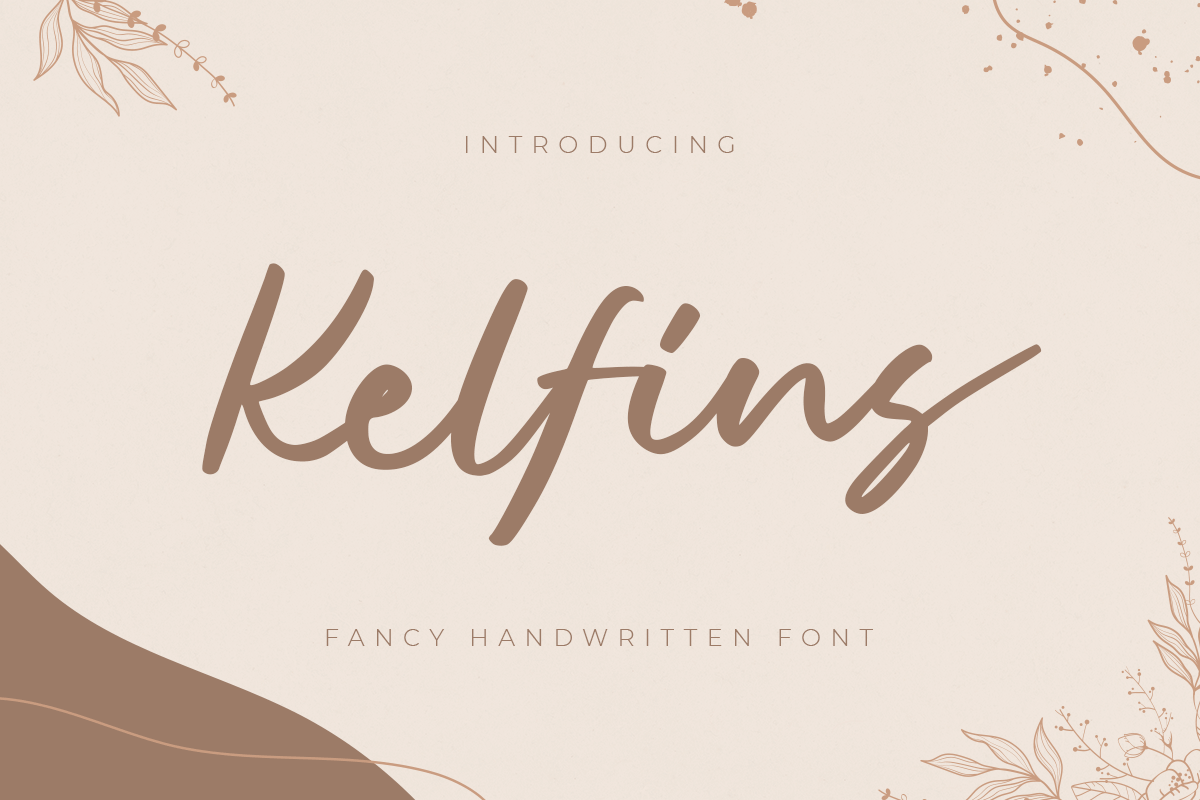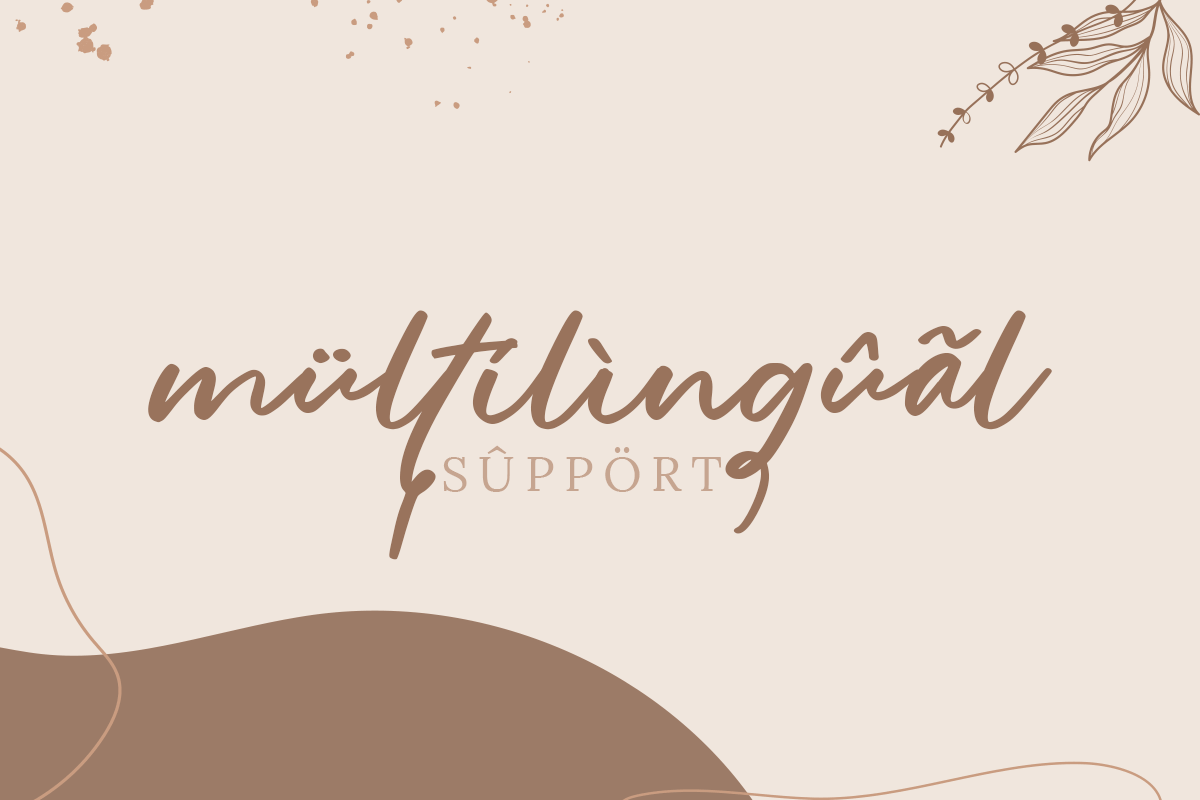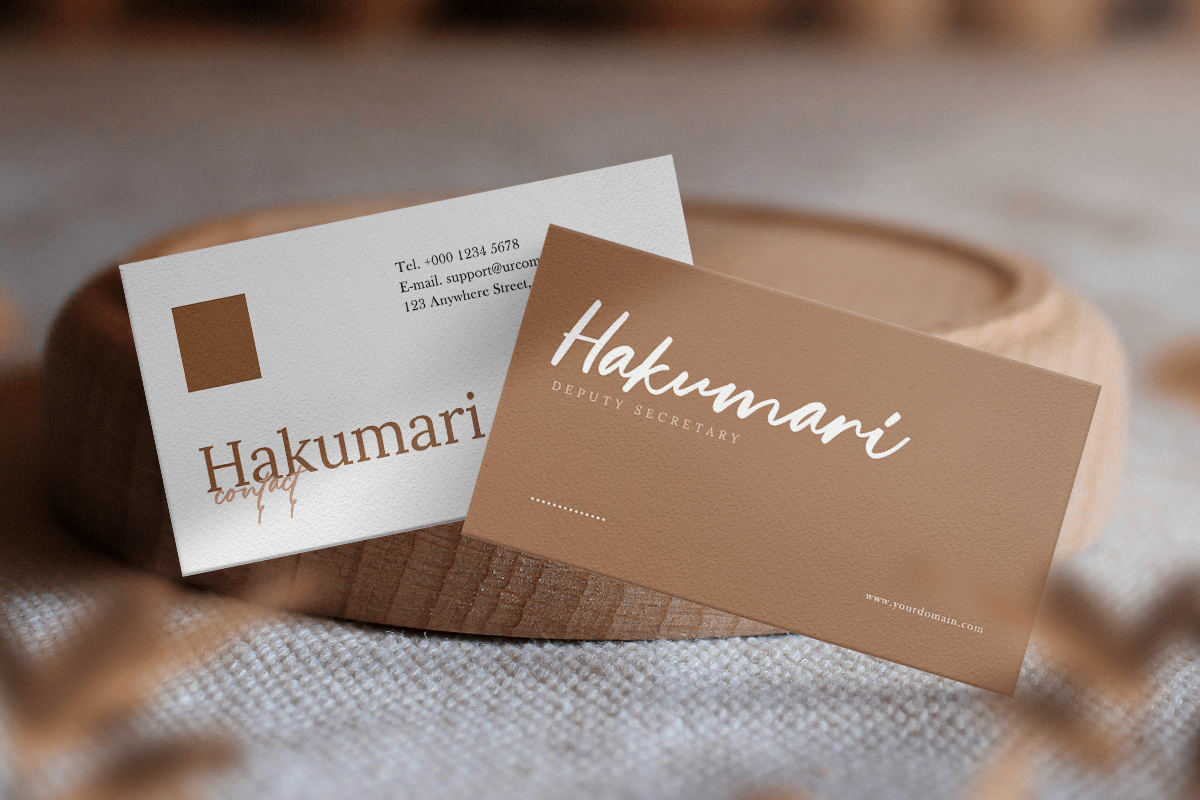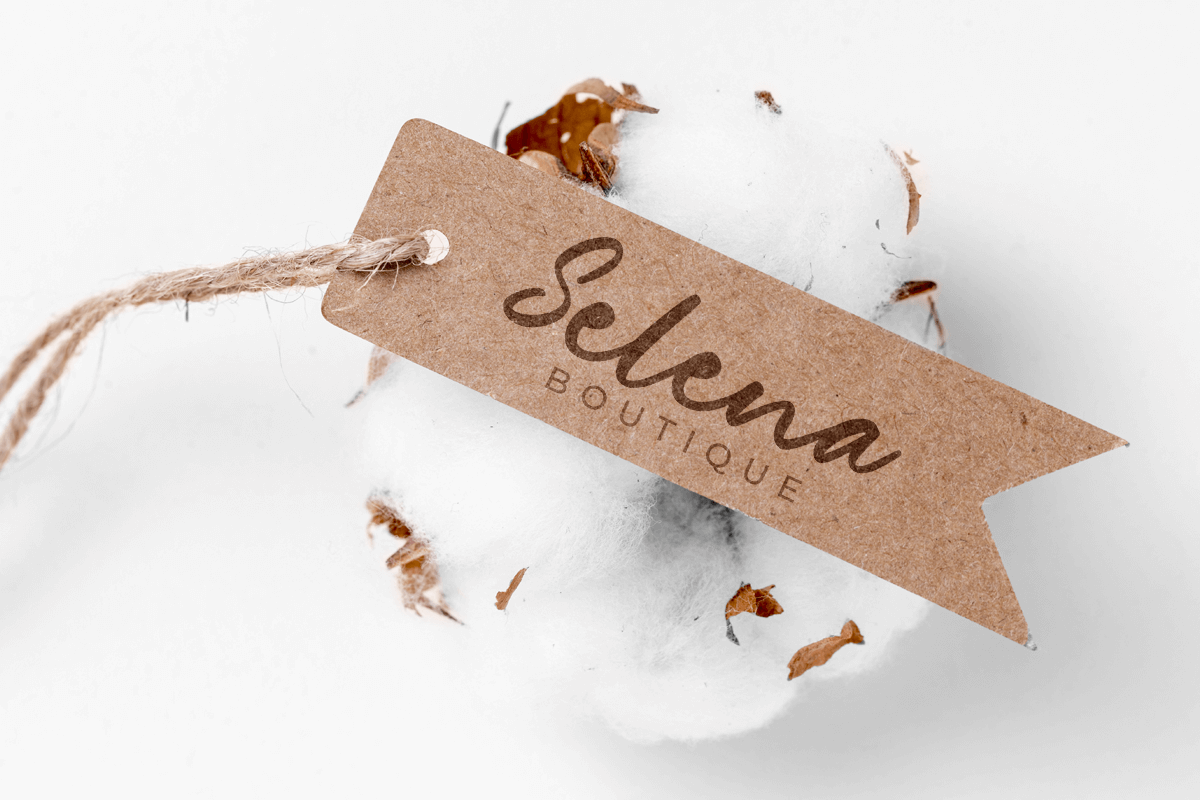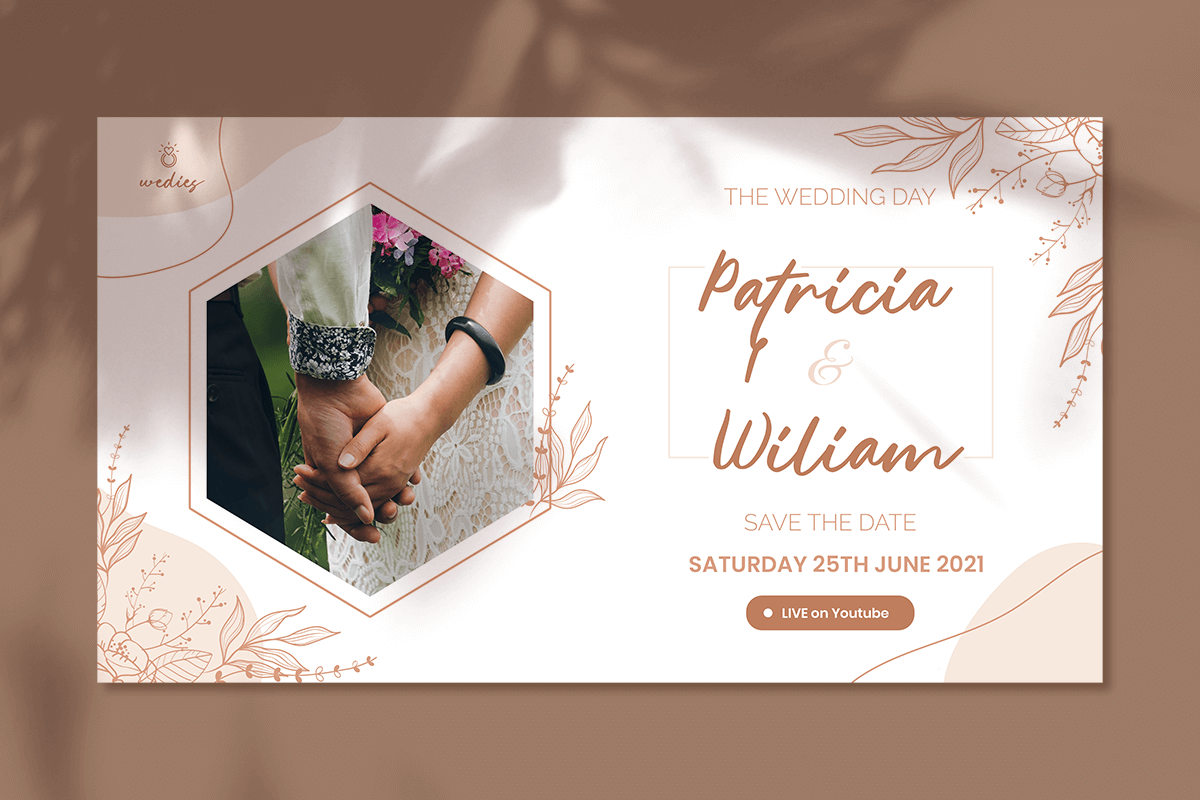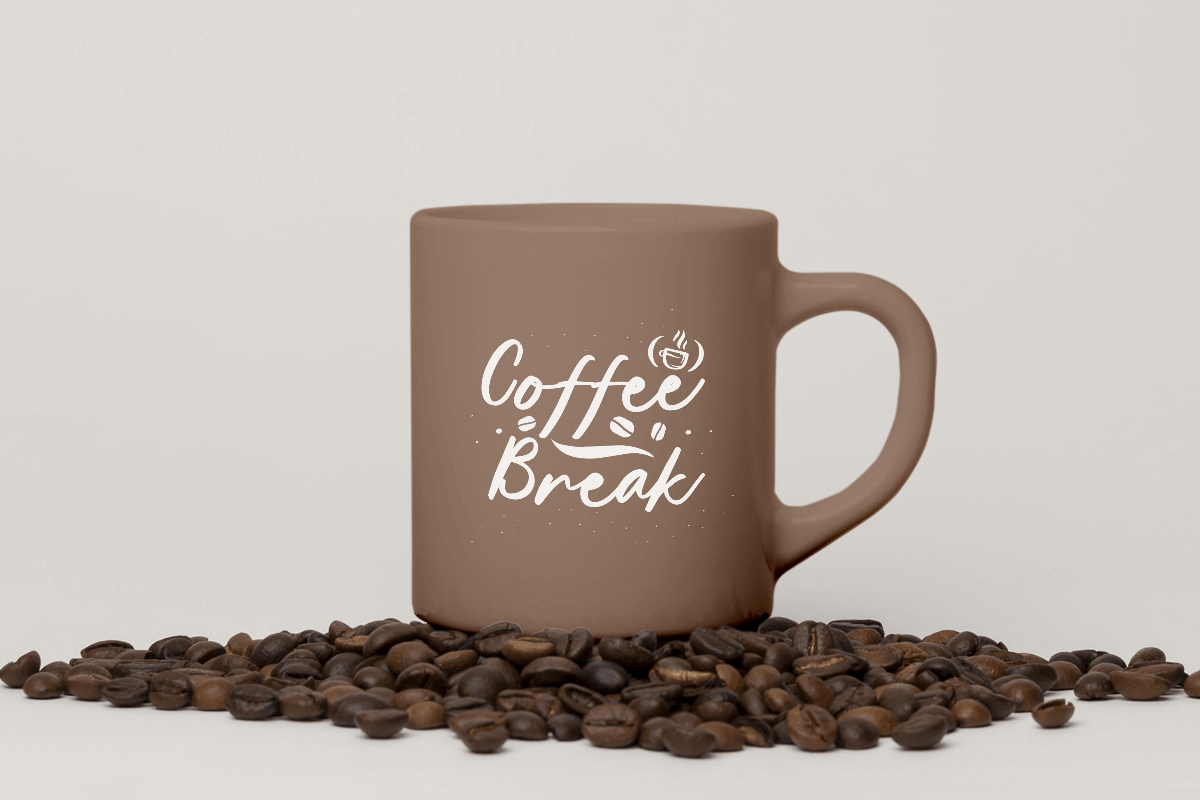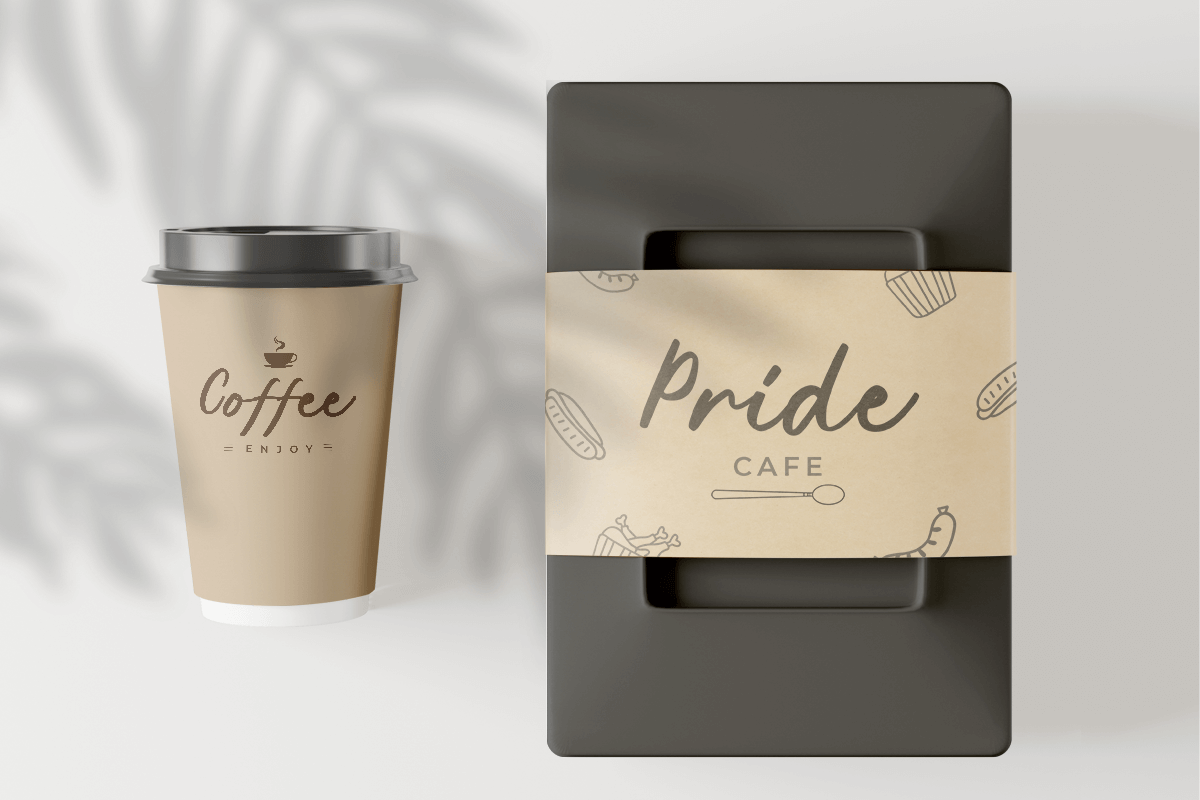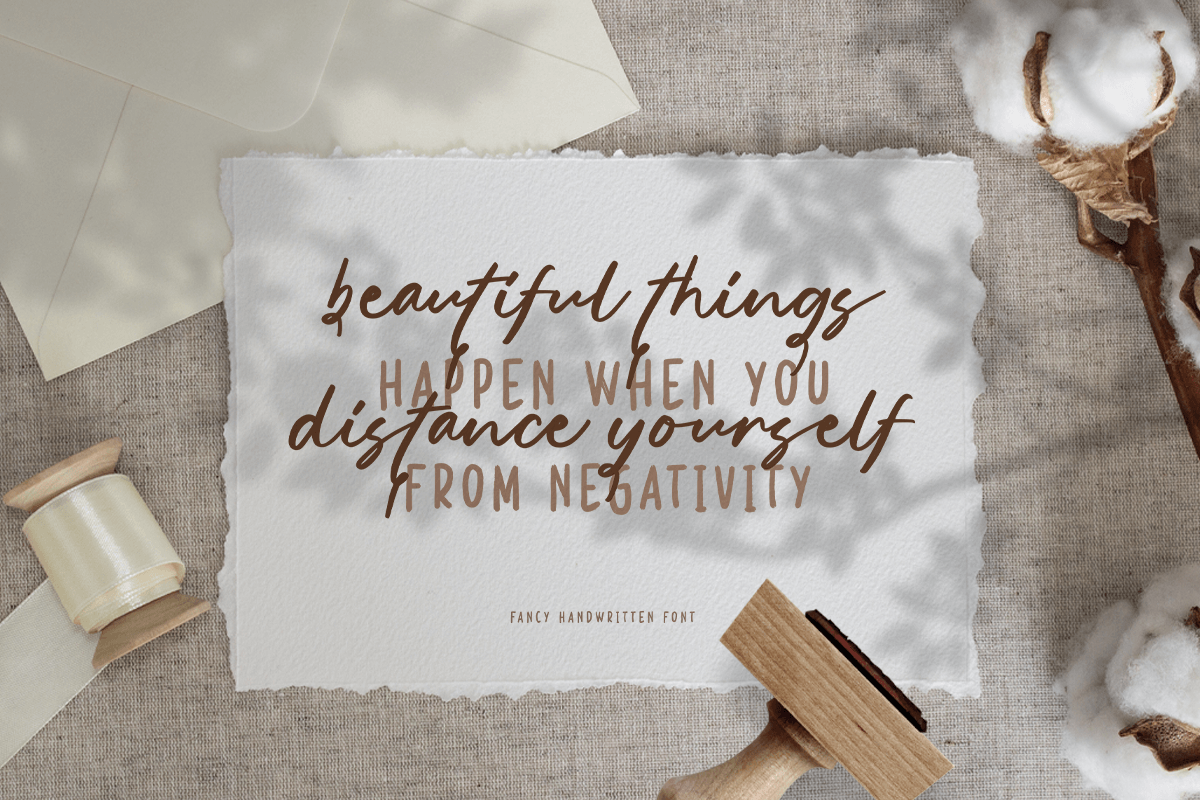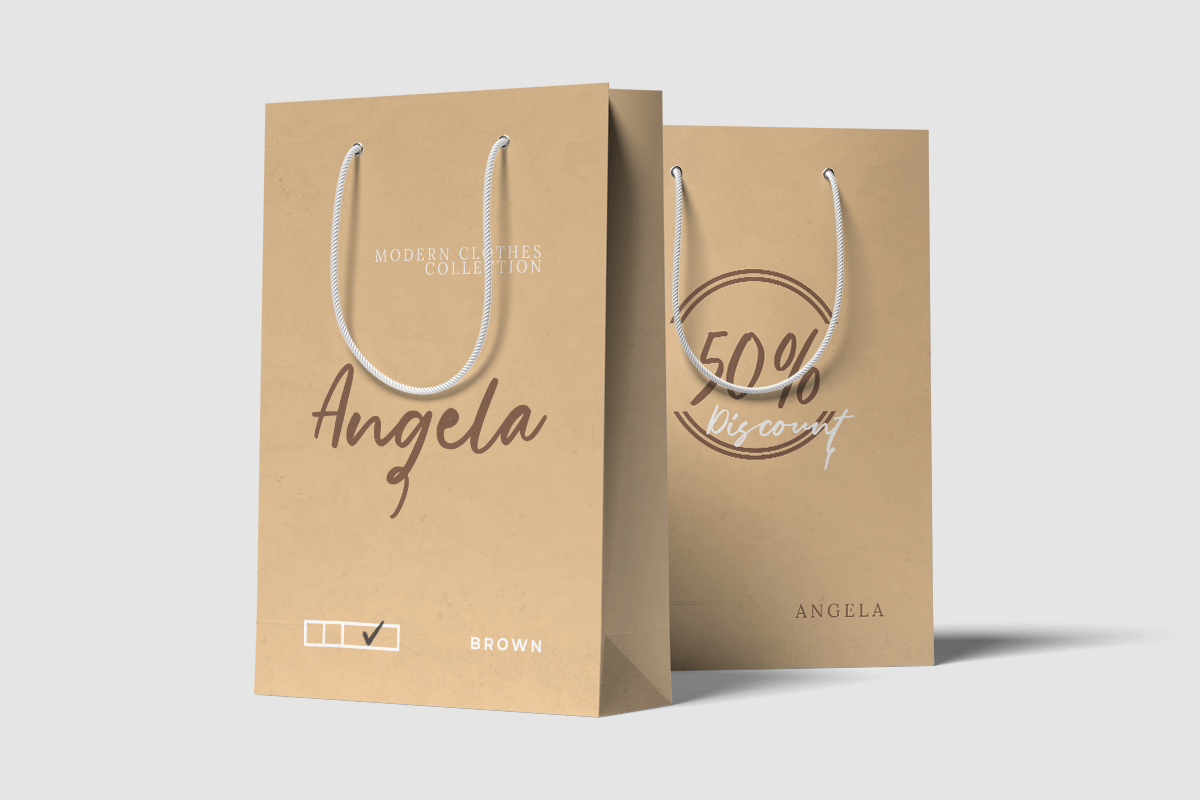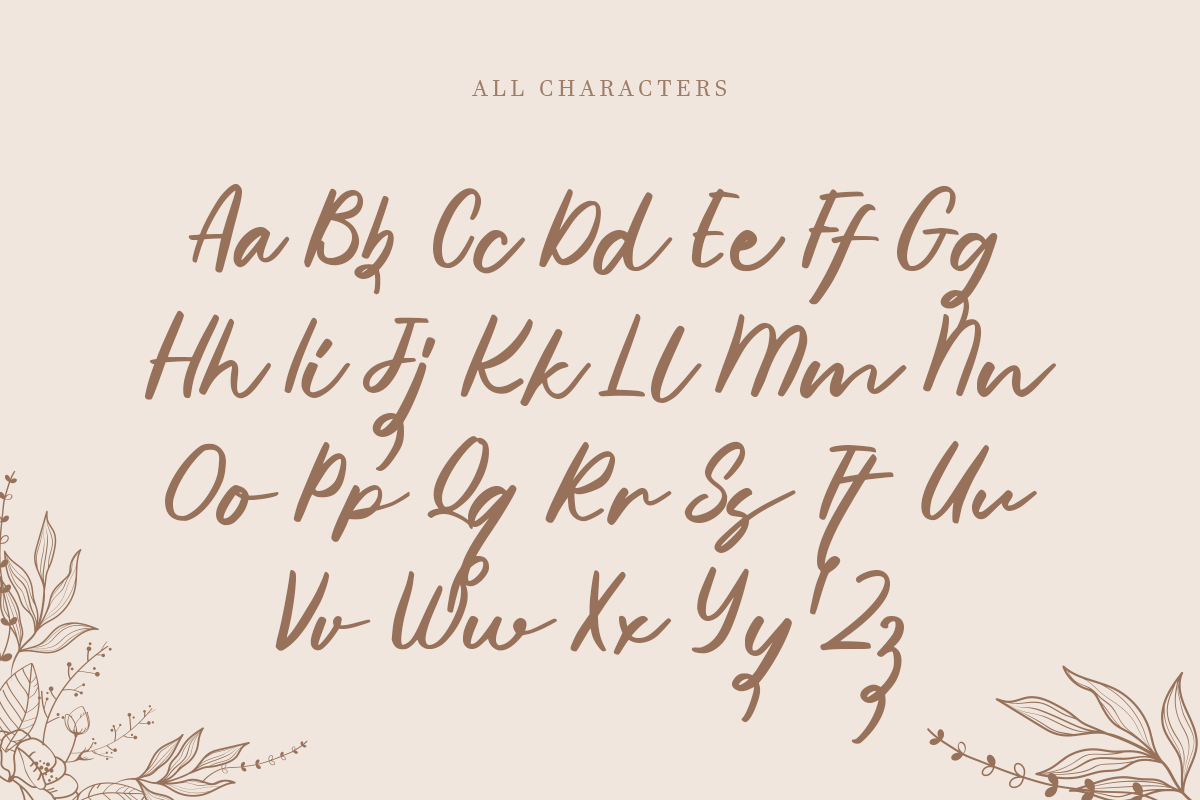
Kelfins
-Fancy Handwritten Font
Kelfins
Kelfins A Modern Fancy Handwritten font with nice and modern style and so beautiful. This font specially crafted for your project design or professional logo, modern for any designs such as product, merchandise, and so many more with easy to use but unique results are so professional.
Enjoy to Design any your needs with cute, cheerful, and charming feel.